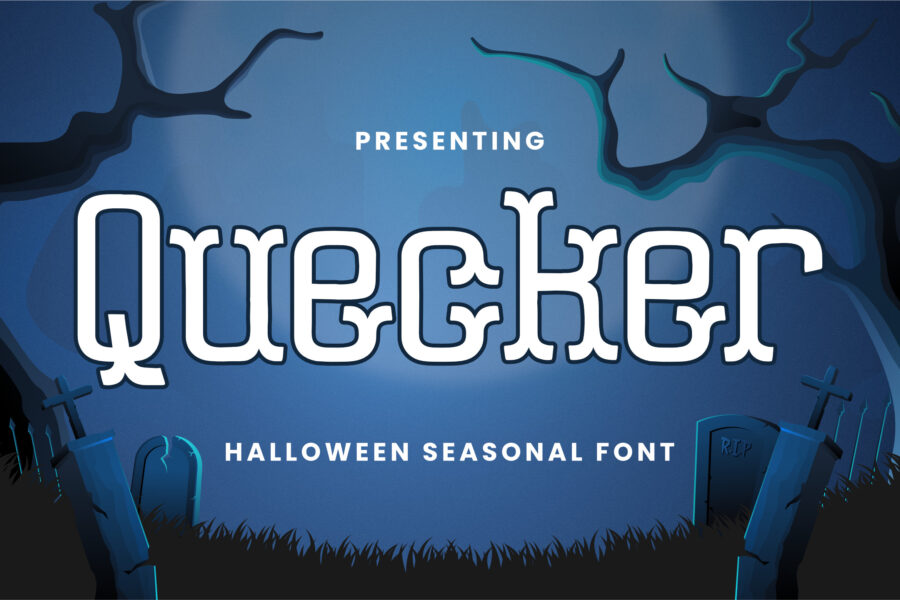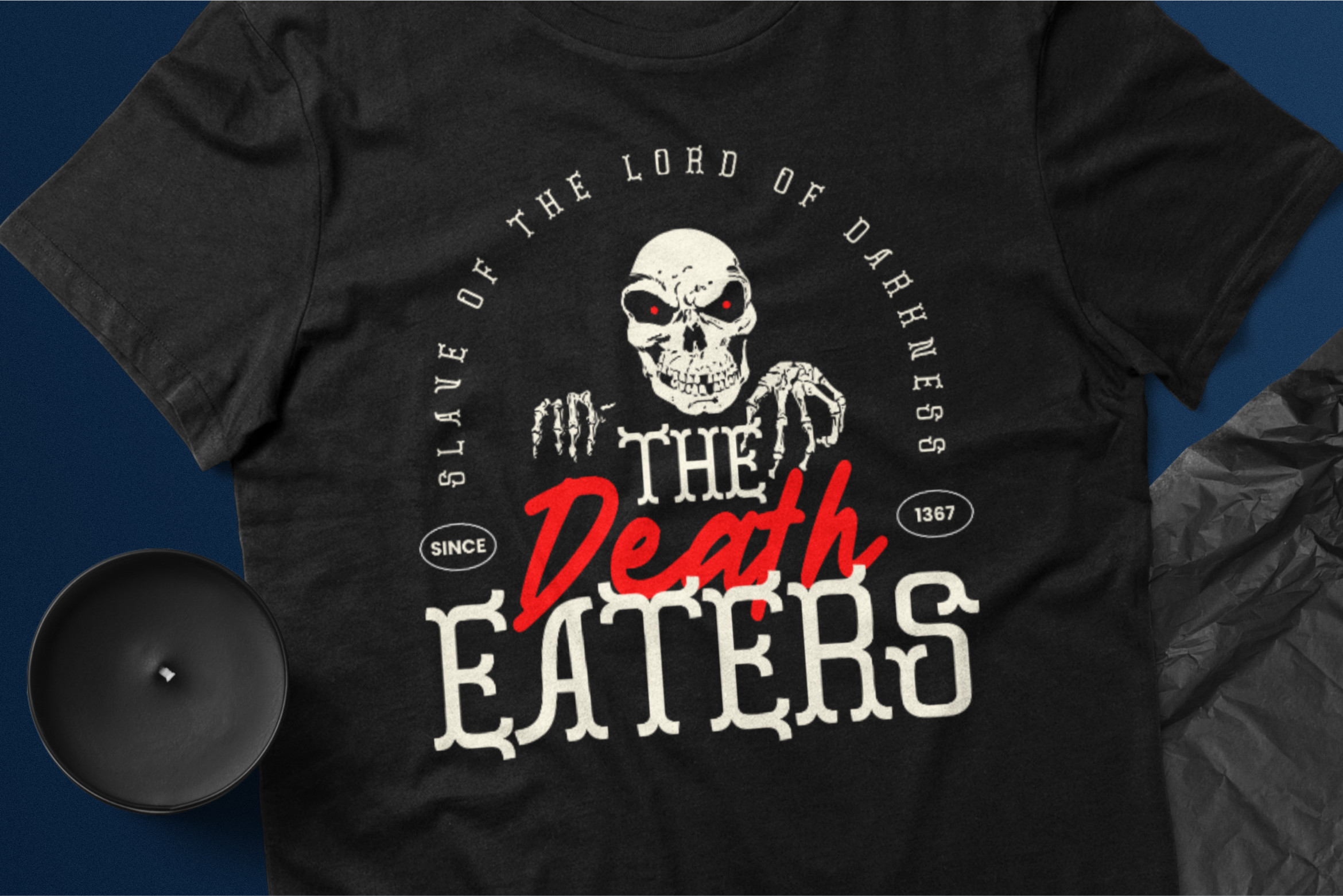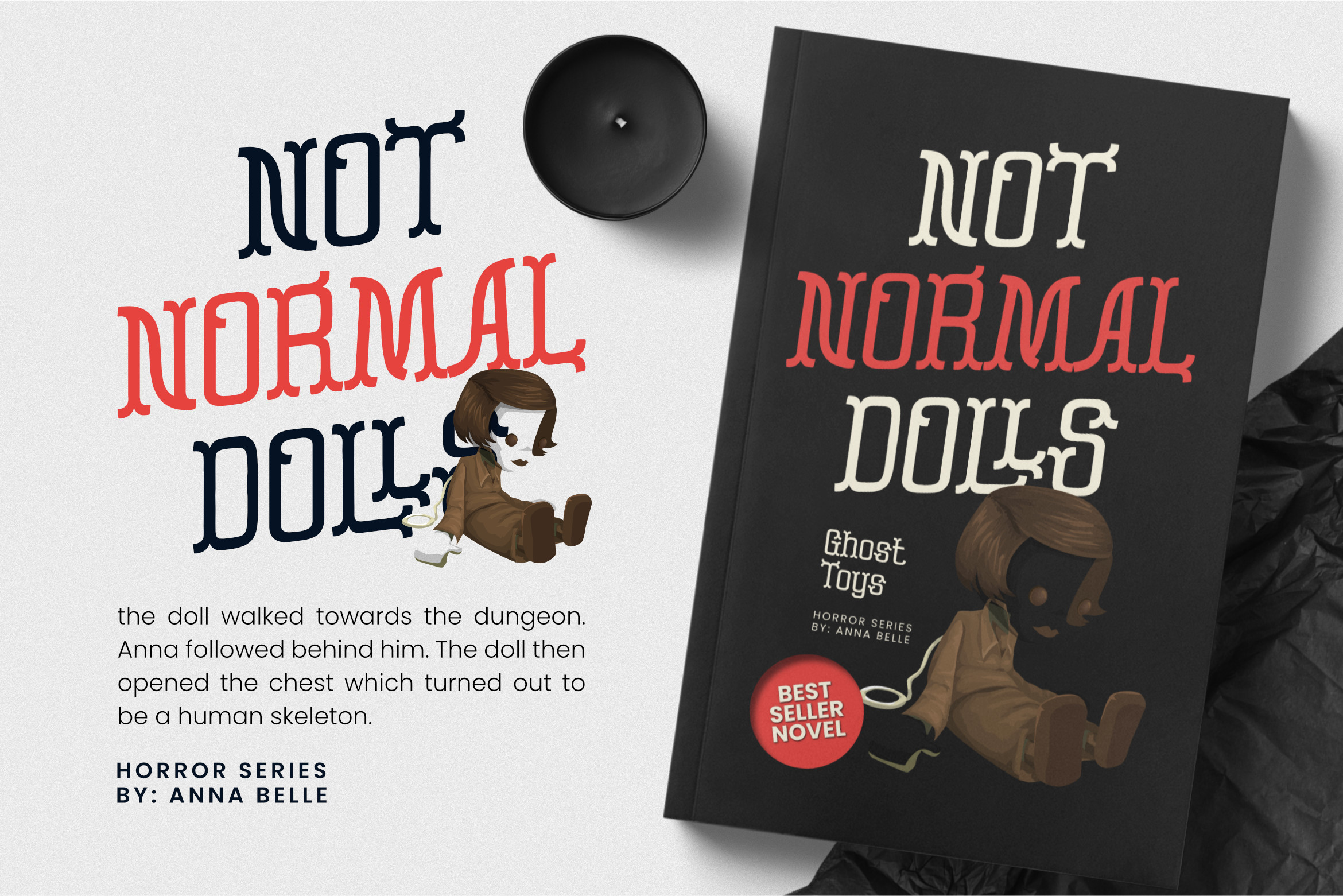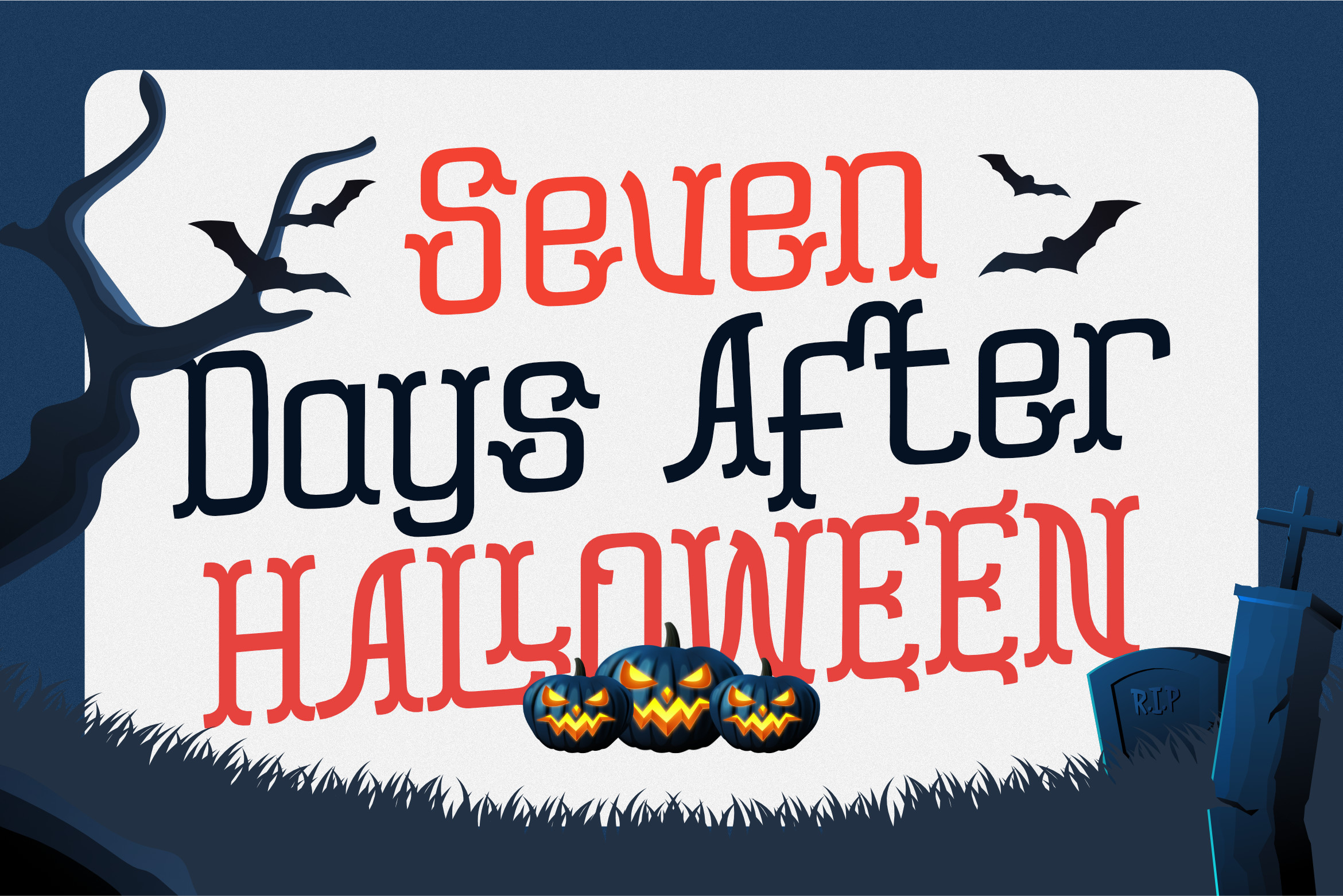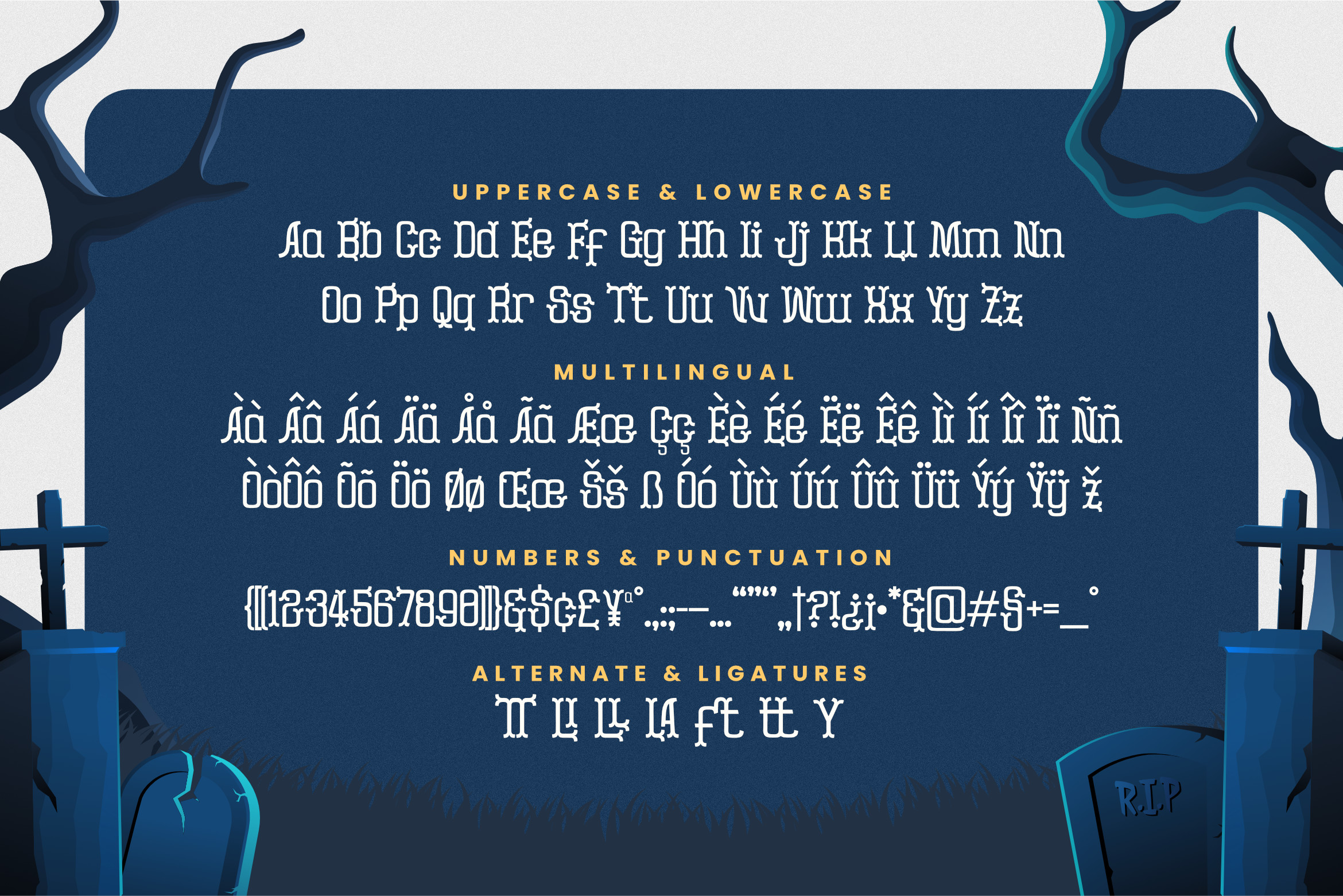
Quecker is a bold and quirky Halloween font that combines retro serif charm with a spooky twist. Its thick, decorative letterforms and unique curled endings make it perfect for Halloween-themed projects such as posters, t-shirts, book covers, and packaging. With its playful yet slightly eerie personality, Quecker brings your designs to life with a fun seasonal vibe.
The font comes complete with uppercase and lowercase letters, multilingual characters, numbers, punctuation, ligatures, and alternate glyphs. Offering versatility for both print and digital use. Whether you’re designing for trick-or-treat parties or haunted merch, Quecker adds a dramatic and entertaining flair.